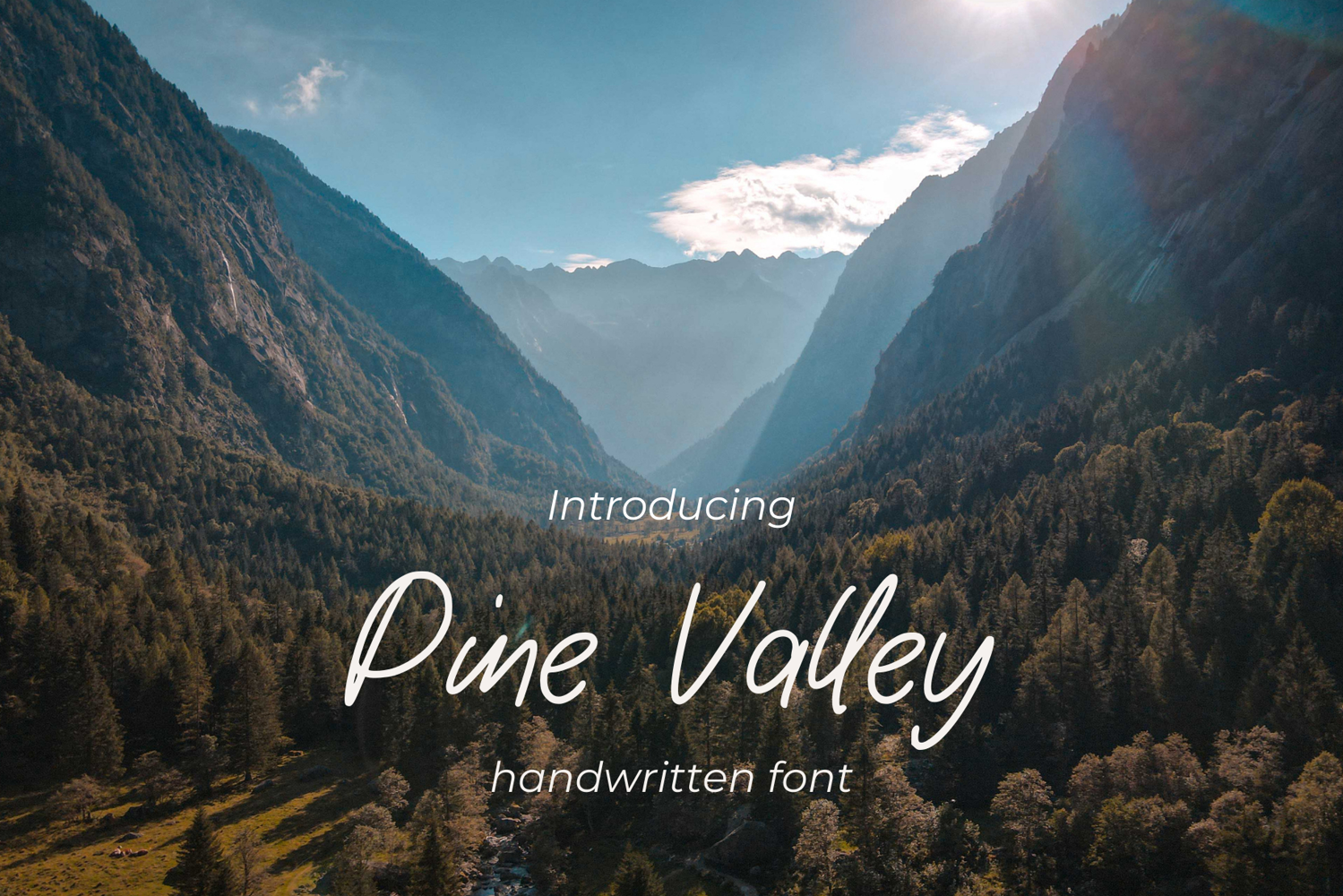
Pine Valley
Pinevalley
Pinevalley is a clean and natural monoline script font inspired by quiet moments, handwritten notes, and effortless creativity. Designed with smooth strokes and organic flow, Pinevalley brings a warm, friendly feel to any design while remaining highly readable.
Featuring an extensive set of ligatures, Pinevalley allows letters to connect naturally, creating fluid and expressive wordforms without looking overstyled. Each character is carefully crafted to maintain balance, consistency, and rhythm, making it perfect for both short phrases and longer text.
Pinevalley works beautifully for branding, logos, social media content, quotes, greeting cards, packaging, invitations, and lifestyle designs. Its relaxed yet polished makes it a versatile choice for modern creatives who want an authentic handwritten look.